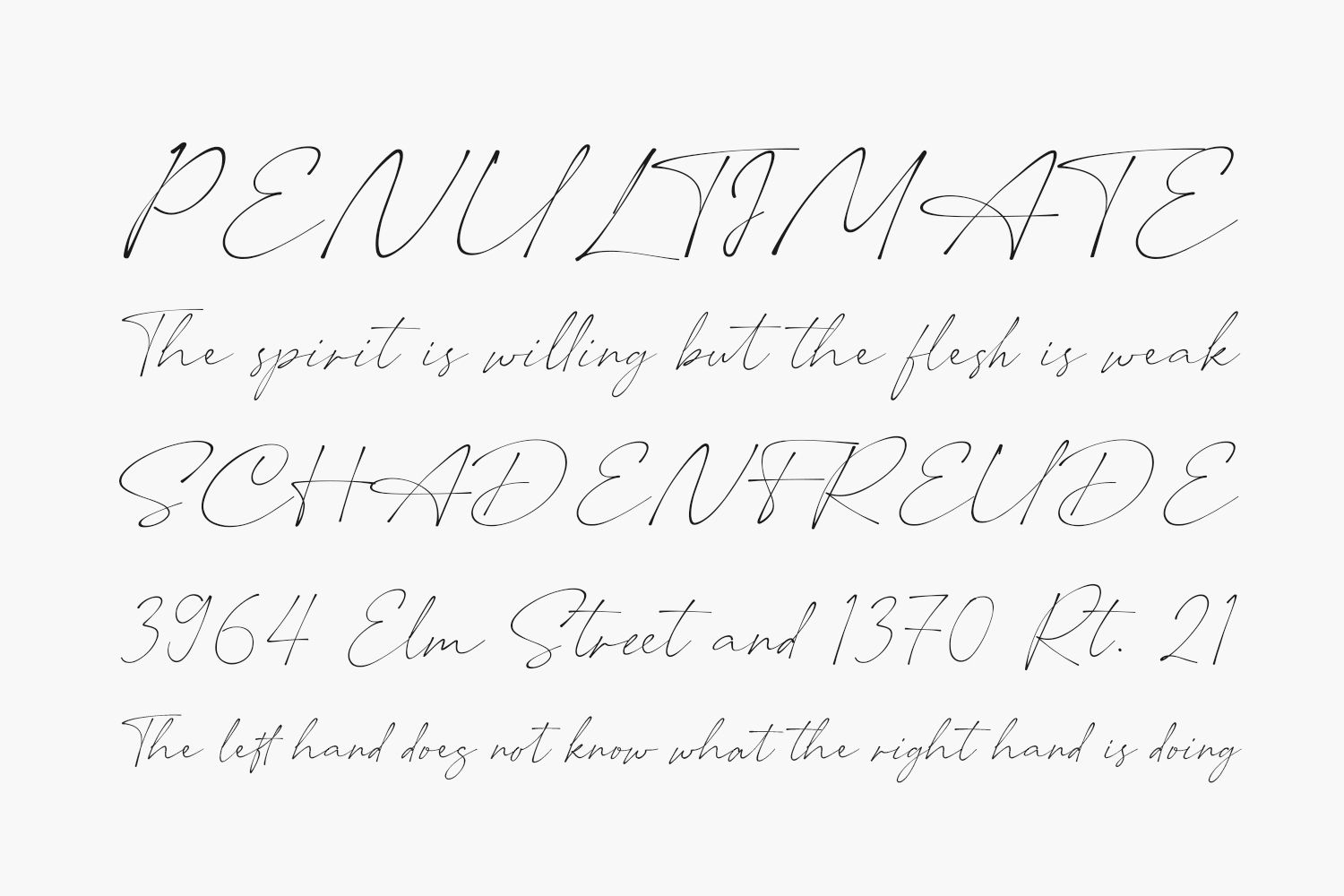
Mutually Beneficial Free Font is a thin and flowing handwritten font. It looks stunning on wedding invitations, thank you cards, quotes, greeting cards, logos, business cards, and every other design which needs a handwritten touch. Mutually Beneficial Free Font was designed by Java Pep and is free for personal use only. Please purchase the full version for commercial use.